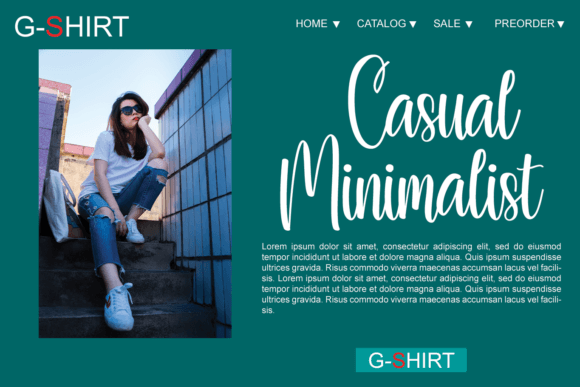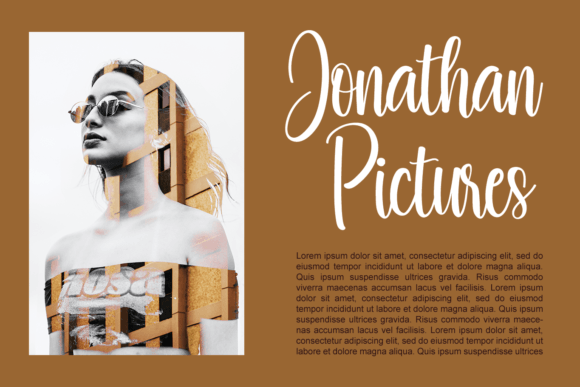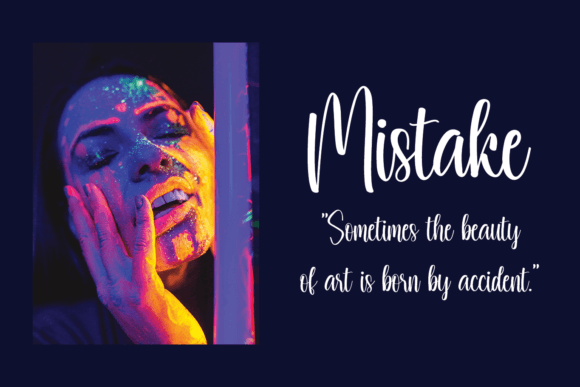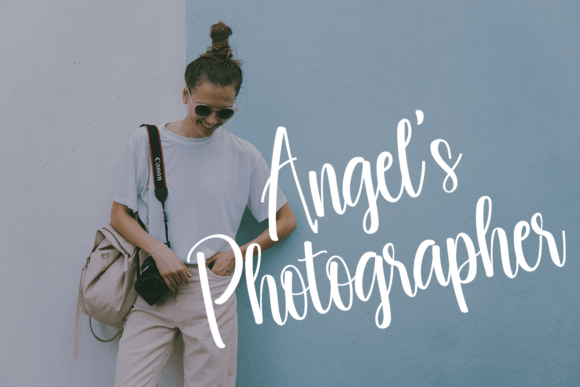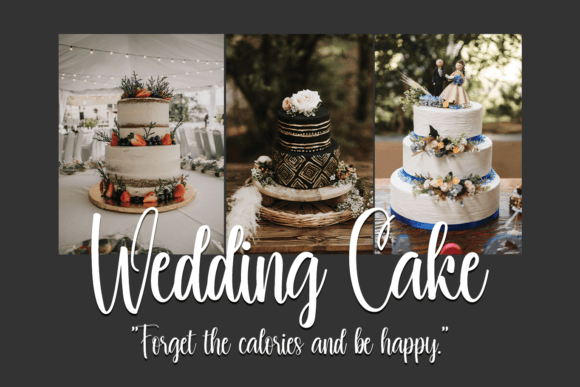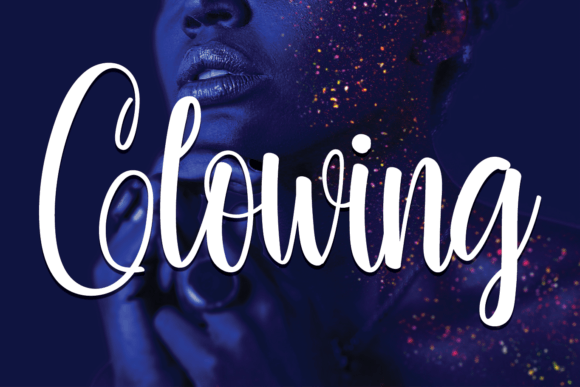
Introducing Glowing: A Romantic Calligraphy Script Font
Are you looking for a font that can add a touch of luxury and romance to your designs? Look no further than Glowing, a beautiful calligraphy script font that is sure to make your creative projects shine. With its unique and elegant characters that seem to dance along the baseline, Glowing is the perfect choice for designers and crafters who want to add a little extra spark to their work.
What is Glowing Font?
Glowing is a romantic and sweet calligraphy script font that features characters that seem to dance along the baseline. This beautiful font is designed to add a luxurious spark to any creative design or project, making it perfect for a wide range of applications, from wedding invitations and party decorations to branding and advertising materials.
Key Features of Glowing Font
- Unique and Elegant Characters: The characters in Glowing are designed to be unique and elegant, with a playful touch that makes them seem to dance along the baseline.
- Romantic and Sweet: Glowing is a romantic and sweet calligraphy script font that is perfect for designs that require a touch of luxury and sophistication.
- Luxurious Spark: With its elegant characters and flowing lines, Glowing adds a luxurious spark to any design or project.
- Versatile: Glowing is a versatile font that can be used for a wide range of applications, from wedding invitations and party decorations to branding and advertising materials.
Why Choose Glowing Font?
There are many reasons why designers and crafters choose Glowing font for their creative projects. Here are just a few:
- Adds a Touch of Luxury: Glowing adds a touch of luxury and sophistication to any design or project, making it perfect for high-end branding and advertising materials.
- Perfect for Romantic Occasions: With its romantic and sweet design, Glowing is perfect for wedding invitations, party decorations, and other romantic occasions.
- Easy to Read: Despite its elegant and flowing design, Glowing is easy to read, making it perfect for body text and other applications where readability is important.
- Highly Versatile: Glowing can be used for a wide range of applications, from digital designs to print materials.
How to Use Glowing Font
Using Glowing font is easy! Here are a few tips to get you started:
- Pair it with Other Fonts: Glowing pairs well with other fonts, including sans-serif fonts and serif fonts. Experiment with different pairings to find the one that works best for your design.
- Use it for Headings and Titles: Glowing is perfect for headings and titles, where its elegant and flowing design can really shine.
- Add it to Your Brand Identity: If you’re looking to add a touch of luxury and sophistication to your brand identity, consider using Glowing font in your logo and other branding materials.
In conclusion, Glowing font is a beautiful and elegant calligraphy script font that is perfect for designers and crafters who want to add a touch of luxury and romance to their creative projects. With its unique and elegant characters, romantic and sweet design, and highly versatile nature, Glowing is sure to become a favorite font in your collection.